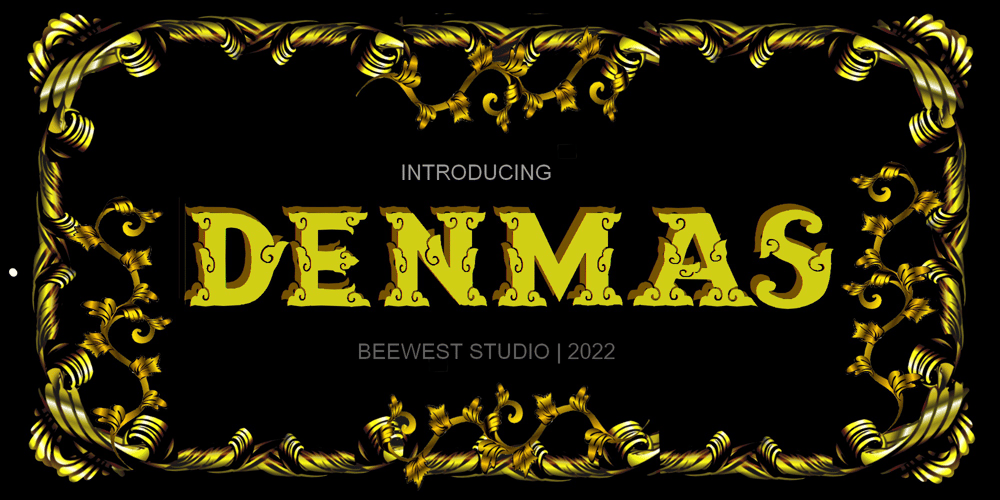
Denmas Font Family was designed by bsmbang wisudyantoro and published by Beewest Studio. Denmas contains 1 styles and family package options. Denmas Font is Engaved Bold Decorative Font that ornamental. This Font is Best as tittle of the novel, Poster, Theatre, Logo and also tatoo. This font is bold , strong , classic and luxurious in the same time.